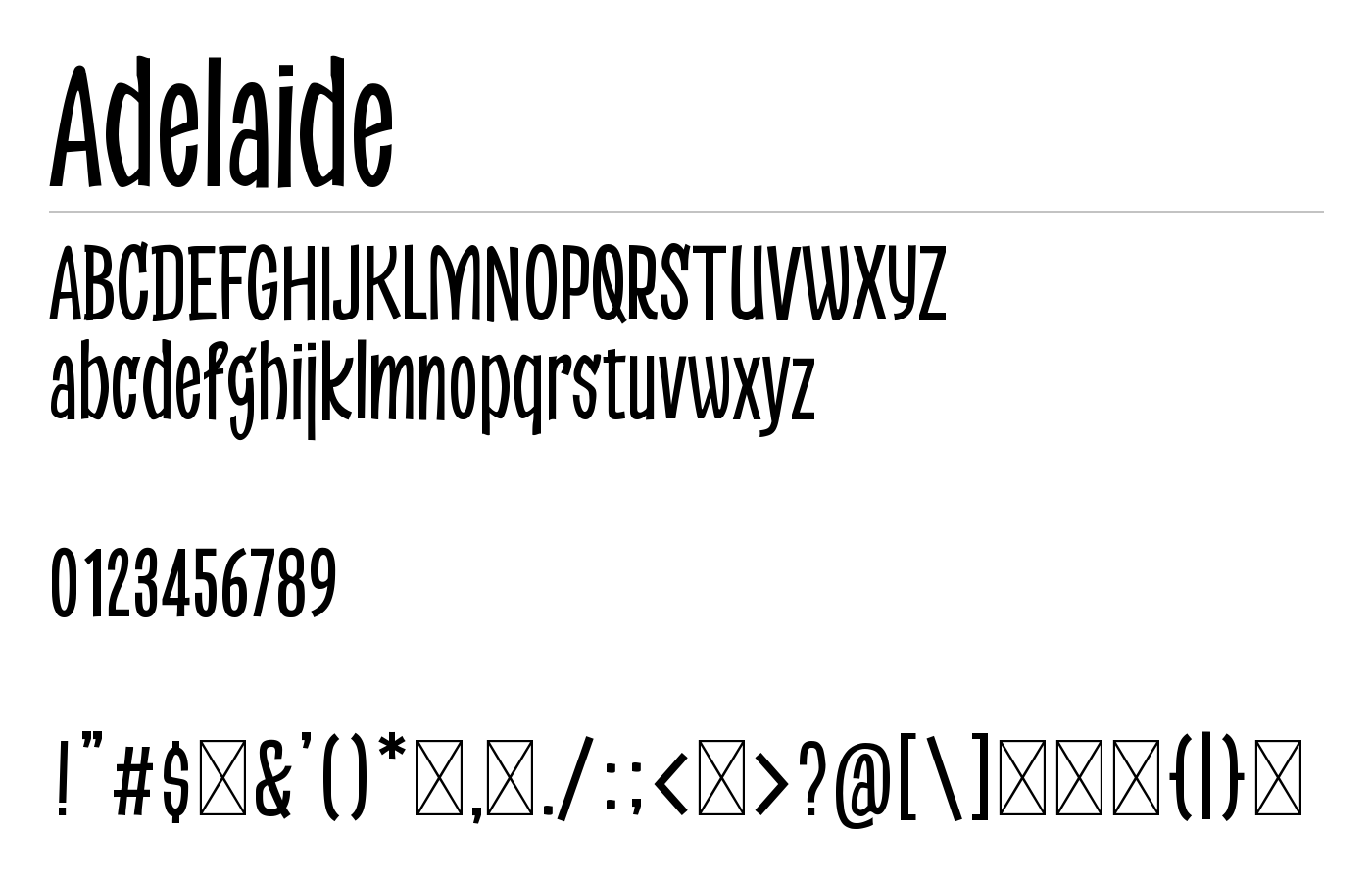
Adelaide is a tall, narrow sans serif font with a quirky, playful character, featuring uneven strokes and slightly irregular letterforms that give it a hand-crafted feel. Its condensed width and medium stroke contrast make it ideal for eye-catching headlines, logos, and creative projects where a modern but distinctive style is desired. This font works well in designs that want to convey approachability and uniqueness, such as editorial layouts or branding with a fun, informal vibe.
Adelaide Font
About Adelaide Font